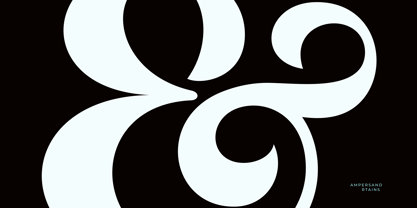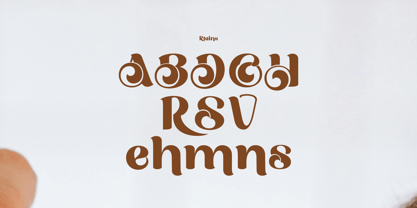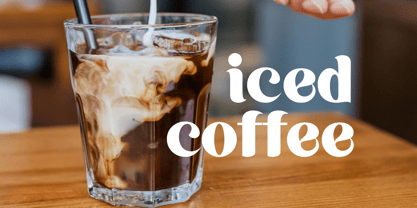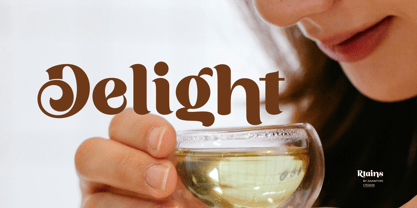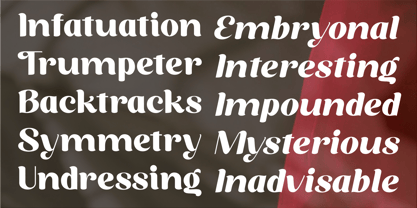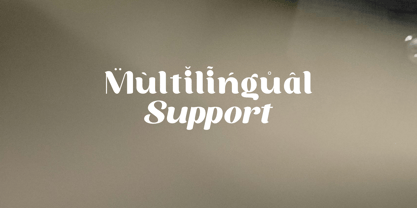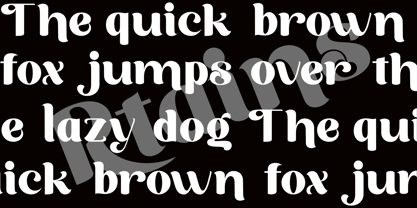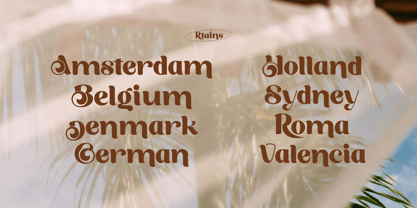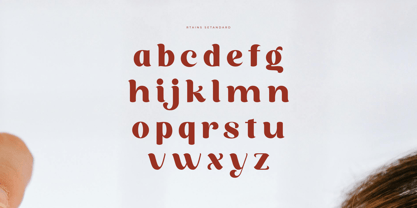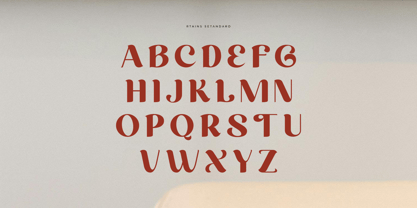
Rtains
by Zaain Type
The Rtains Font Family was designed by Ju Naen and published by Zaain Type. Rtains contains 2 styles and family package options. More about this family
Rtains is a sans serif typeface with elegant contrast between thick and thin strokes, available in two styles: Regular and Oblique. Clean yet full of character, Rtains is designed to bring a modern, professional, and sophisticated feel to every letterform. Perfect for branding, editorials, and digital designs that need a bold touch with a warm personality